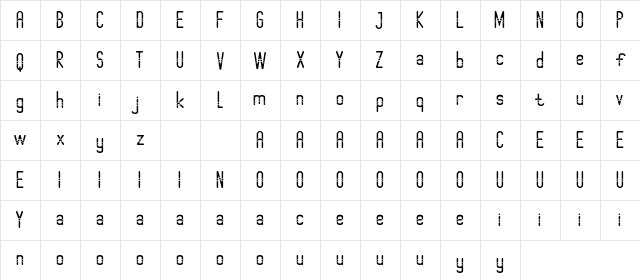
Jane Saloman Demo Slice Regular
| Foundry | Edric Studio |
| Designer | Renata & Suci Anita |
Design Context for Jane Saloman Demo Slice Typeface
Jane Saloman Demo Slice takes a measured approach to typography — its balanced proportions and neutral character make it a reliable workhorse for both digital and print work.